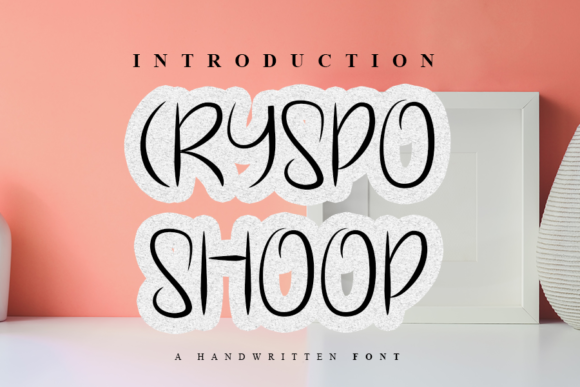
Introducing Cryspo Shoop: The Bouncy Handwritten Font to Elevate Your Creative Projects
Are you a designer, crafter, or DIY enthusiast looking for a font that can add a touch of personality and whimsy to your creative projects? Look no further than Cryspo Shoop, a bouncy handwritten font that is sure to turn your ideas into true works of art. In this article, we’ll dive into the features and benefits of Cryspo Shoop, and explore how you can use it to take your designs to the next level.
What is Cryspo Shoop?
Cryspo Shoop is a unique and playful handwritten font that is perfect for a wide range of creative projects. Whether you’re looking for fonts for Instagram, calligraphy scripts for DIY projects, or simply want to add a personal touch to your designs, Cryspo Shoop is the perfect choice. Its bouncy and irregular strokes give it a charming, hand-crafted feel that is sure to capture the attention of your audience.
Key Features of Cryspo Shoop
So what sets Cryspo Shoop apart from other fonts? Here are just a few of its key features:
- Bouncy and playful strokes: Cryspo Shoop’s irregular strokes give it a lively and energetic feel that is perfect for designs that need a bit of personality.
- Handwritten feel: Unlike more formal fonts, Cryspo Shoop has a distinctly handwritten feel that is perfect for adding a personal touch to your designs.
- Versatile: Whether you’re using Cryspo Shoop for Instagram fonts, calligraphy scripts, or DIY projects, it’s the perfect choice for a wide range of creative applications.
Using Cryspo Shoop for Your Creative Projects
So how can you use Cryspo Shoop to elevate your creative projects? Here are just a few ideas to get you started:
Instagram Fonts
Want to add a touch of personality to your Instagram feed? Use Cryspo Shoop to create eye-catching captions and graphics that are sure to stand out. Its playful strokes and handwritten feel make it perfect for adding a bit of whimsy to your Instagram designs.
Calligraphy Scripts for DIY Projects
If you’re a crafter or DIY enthusiast, Cryspo Shoop is the perfect choice for your calligraphy needs. Use it to add a personal touch to your DIY projects, from handmade cards to decorative signs.
Design and Branding
Cryspo Shoop is also a great choice for designers and brands looking to add a bit of personality to their designs. Use it to create eye-catching logos, branding materials, and marketing collateral that stands out from the crowd.
Tips for Getting the Most Out of Cryspo Shoop
Here are just a few tips for getting the most out of Cryspo Shoop:
- Experiment with different colors and textures: Cryspo Shoop’s playful strokes and handwritten feel make it the perfect choice for experimenting with different colors and textures.
- Mix and match with other fonts: Don’t be afraid to mix and match Cryspo Shoop with other fonts to create a unique and eye-catching design.
- Use it to add a personal touch: Cryspo Shoop’s handwritten feel makes it perfect for adding a personal touch to your designs. Use it to add a bit of personality and whimsy to your creative projects.
In conclusion, Cryspo Shoop is a bouncy handwritten font that is perfect for designers, crafters, and DIY enthusiasts looking to add a touch of personality and whimsy to their creative projects. Its playful strokes and handwritten feel make it the perfect choice for a wide range of creative applications, from Instagram fonts to calligraphy scripts and DIY projects. So why wait? Download Cryspo Shoop today and start turning your creative ideas into true works of art!